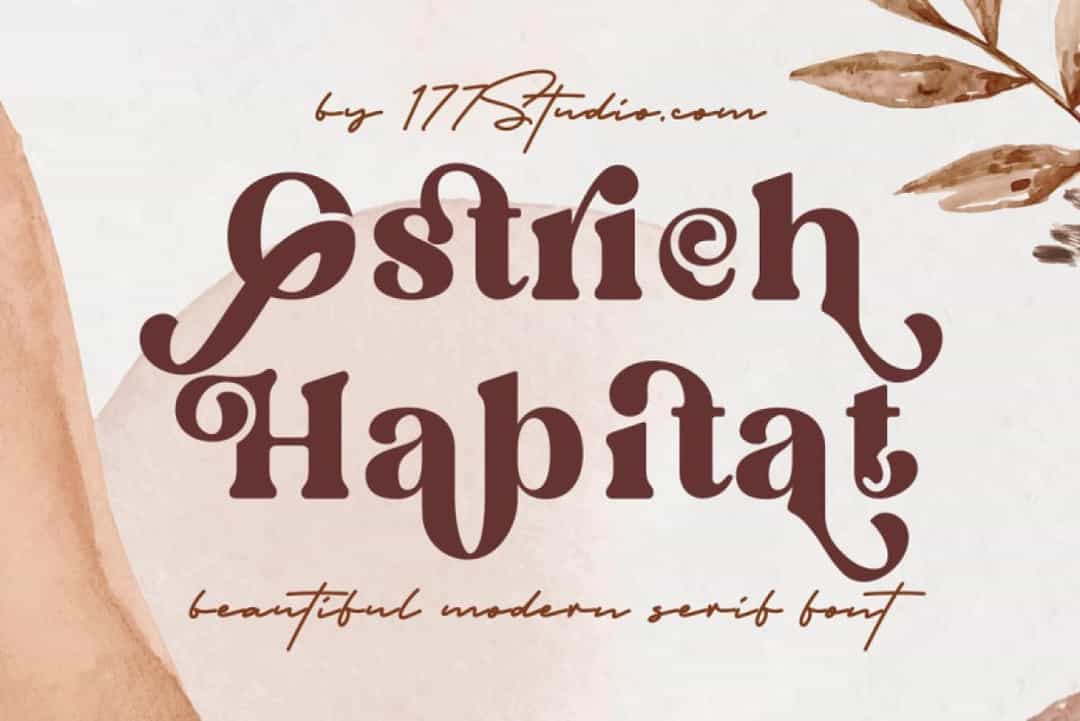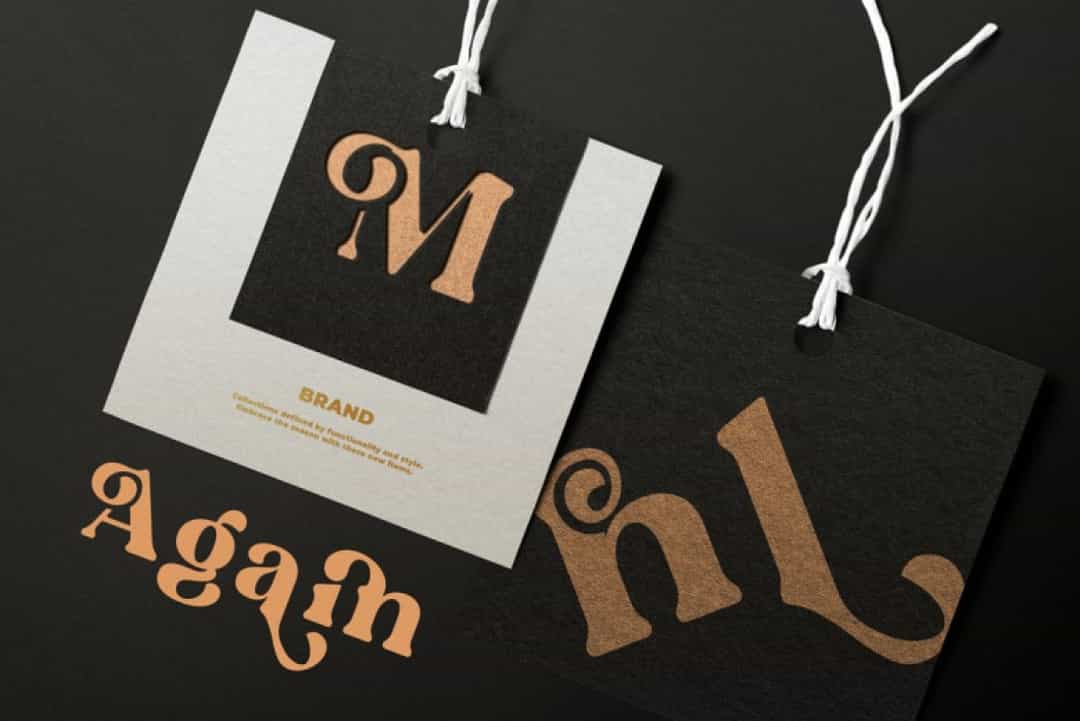
Ostrich Habitat is a modern classic serif type. With its curvaceous appearance, this font exudes luxury and elegance, giving off an air of luxuriousness that exudes from it. The versatile display font offers enough character for branding purposes as well as logo design; use it for headlines clothing alcohol labels posters online magazines automobiles etc…